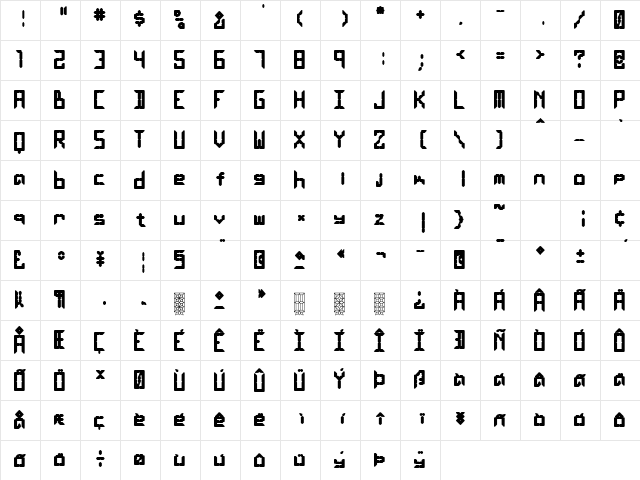
LEaD Lights Bold Regular
Design Context for LEaD Lights Bold Typeface
LEaD Lights Bold is a composed and adaptable typeface that performs quietly and consistently across a wide range of design contexts. Its bold stroke weight gives it real presence on the page.